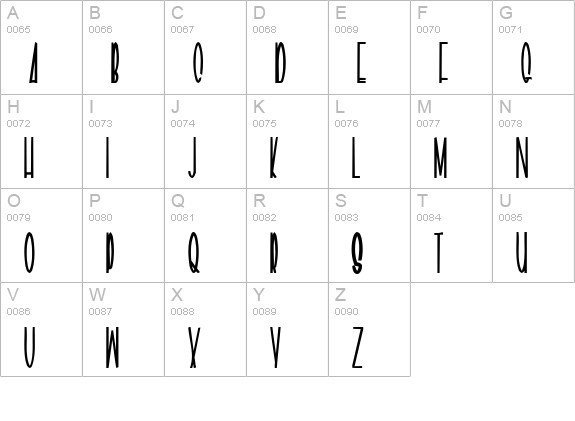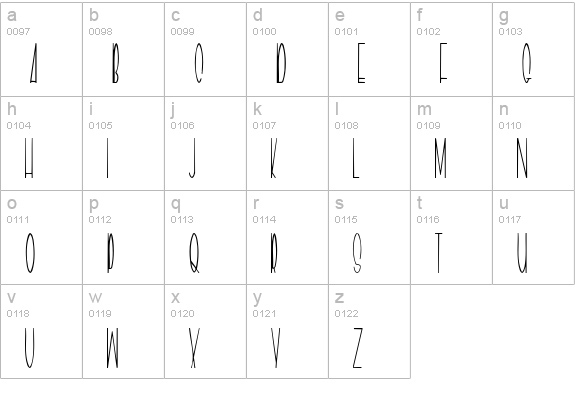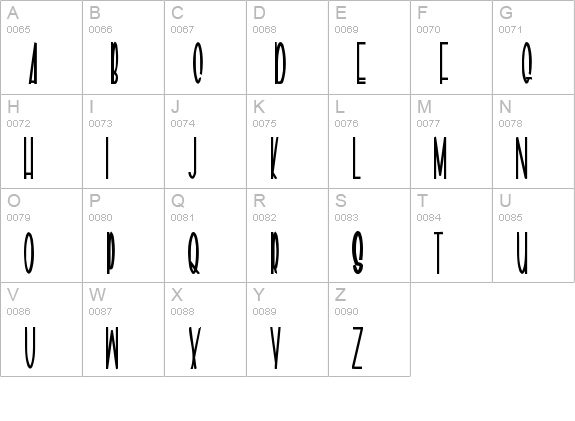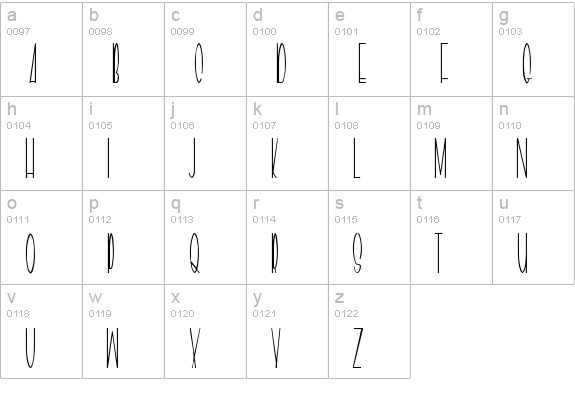
Geeves Font Details
Geeves font is a stylish and modern typeface designed to bring a touch of elegance to your projects. With its clean lines and distinctive letterforms, Geeves font is perfect for adding a sophisticated flair to any design. This versatile font is ideal for a wide range of applications, from branding and advertising to invitations and social media graphics. Best of all, Geeves font is available for free download at FontsMarket.com. So you can easily access this high-quality typeface and enhance your creative projects without any cost. Don't miss out on the opportunity to elevate your designs with the timeless charm of Geeves font. Download it today and start creating beautiful and professional-looking visuals effortlessly.